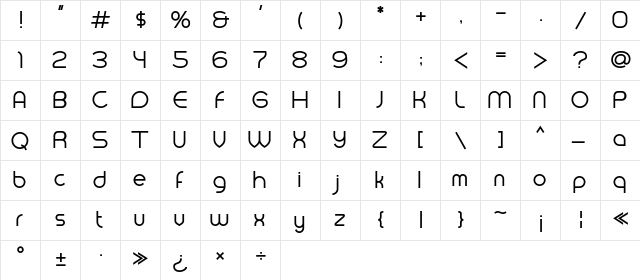
Diamonds Regular
Design Context for Diamonds Typeface
Diamonds takes a measured approach to typography — its balanced proportions and neutral character make it a reliable workhorse for both digital and print work.